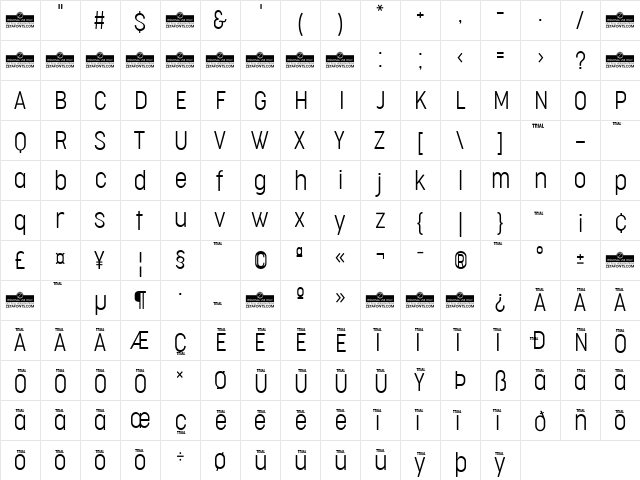
Cocogoose Condensed Trial UltraLight Font Preview
| Foundry | Zetafonts |
| Designer | Cosimo Lorenzo Pancini |
Design Context for Cocogoose Condensed Trial Typeface
Cocogoose Condensed Trial offers clean, dependable letterforms without strong stylistic allegiance, making it a practical choice for designers who need flexibility. Its slender proportions lend an understated elegance to any composition. The condensed width makes it efficient for tight spaces without sacrificing legibility.